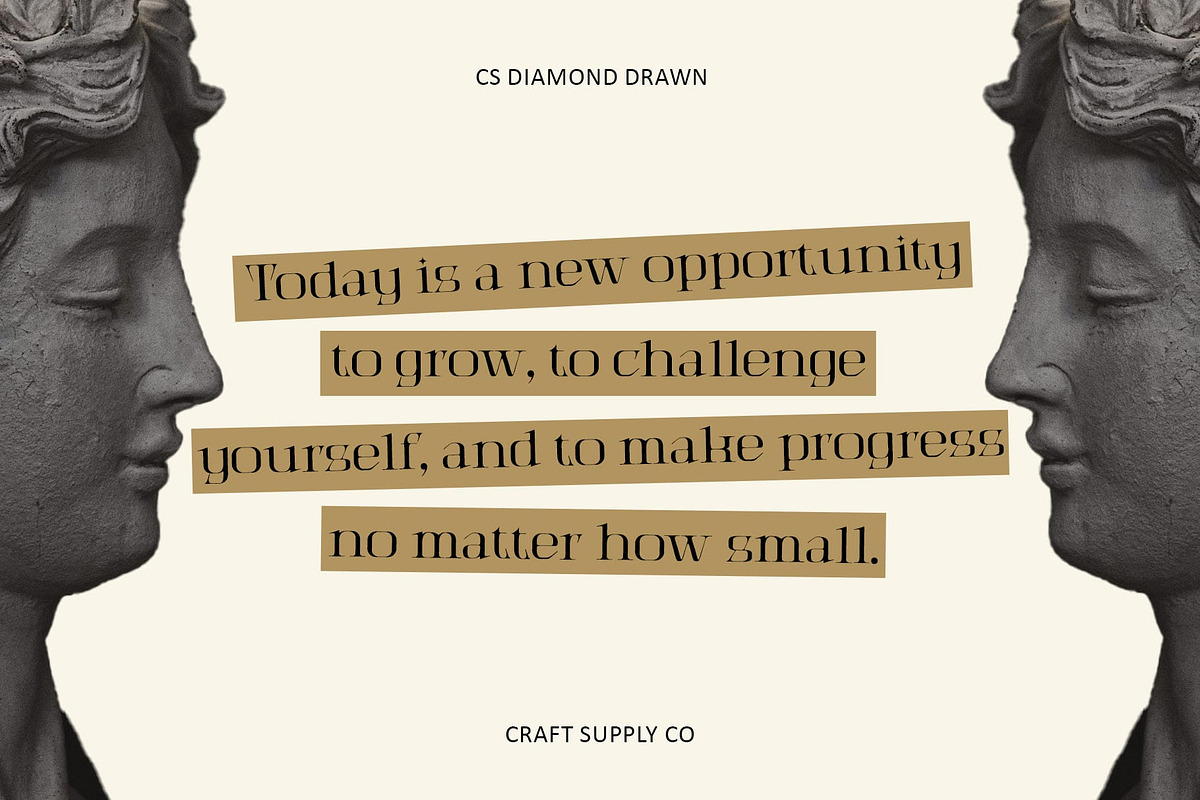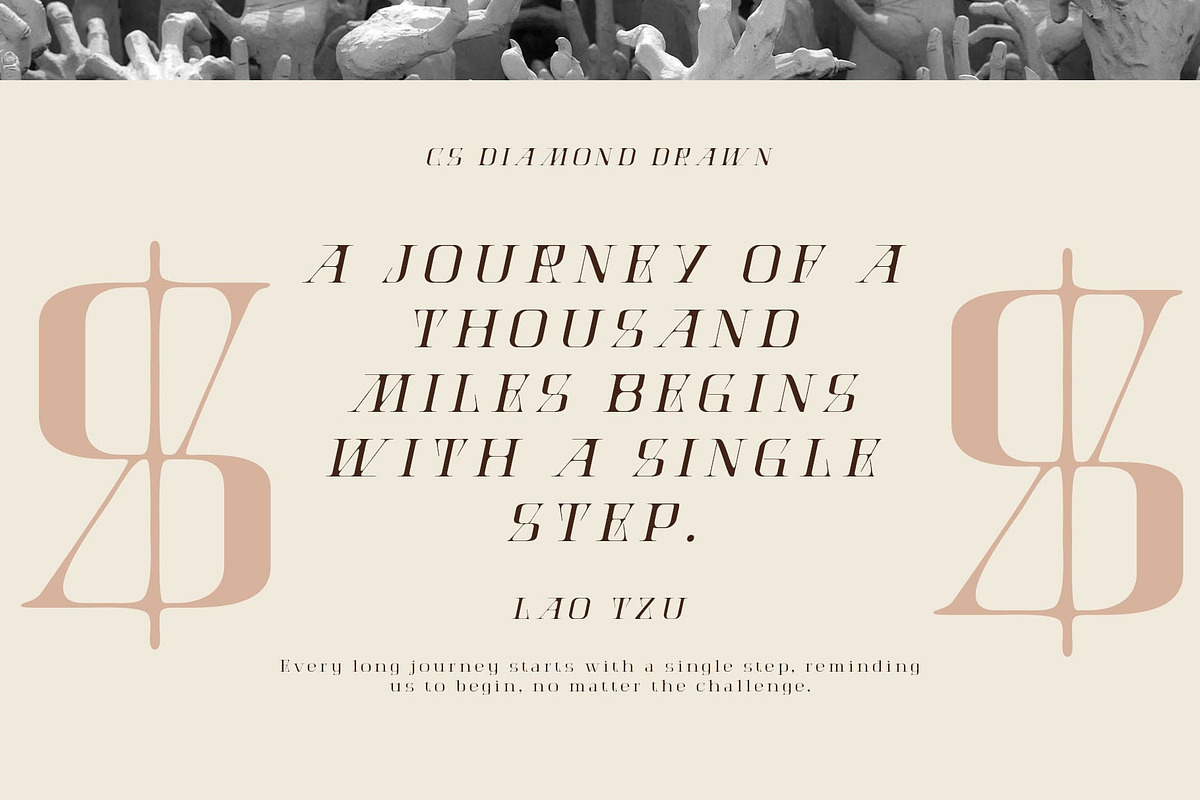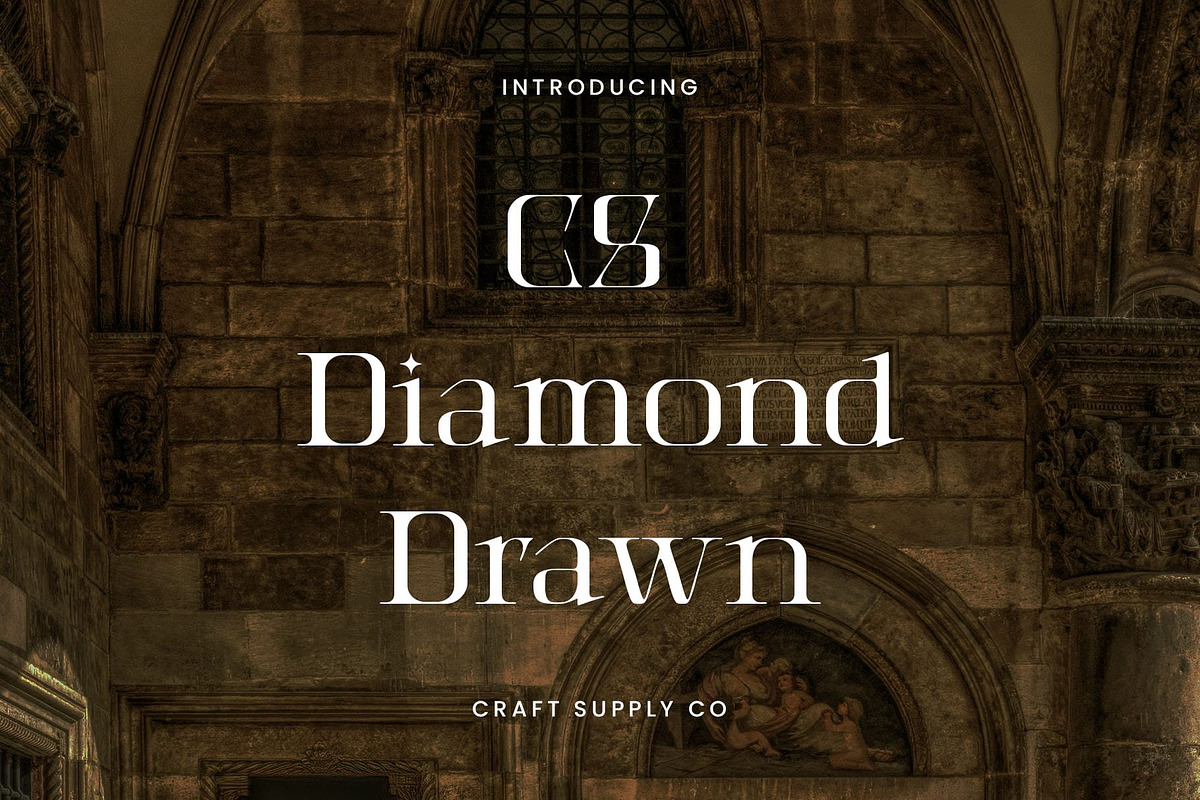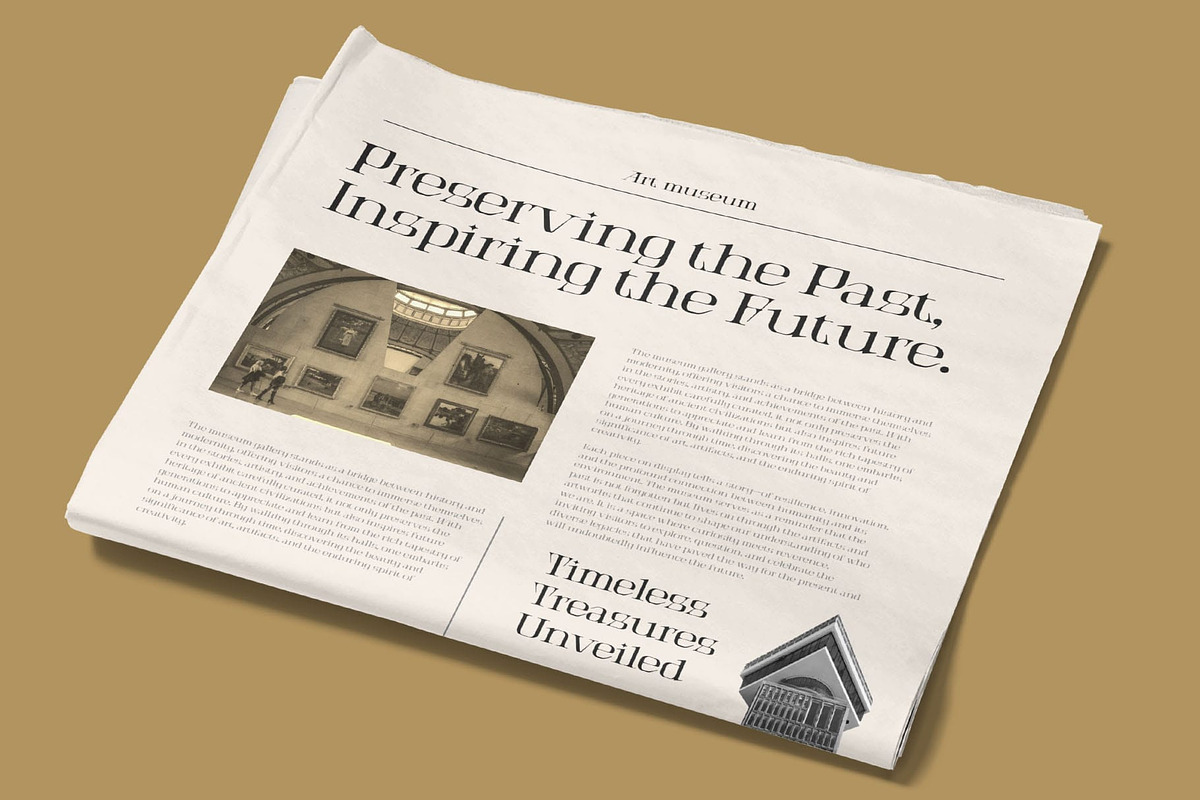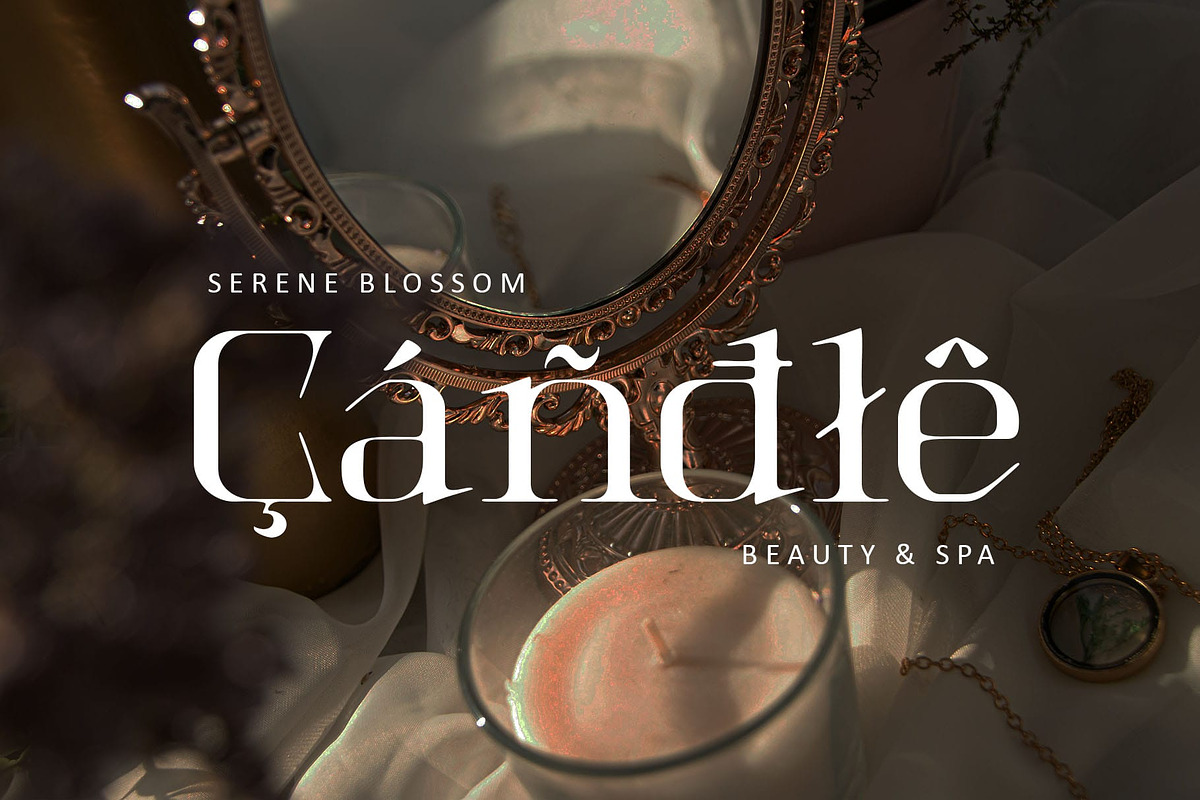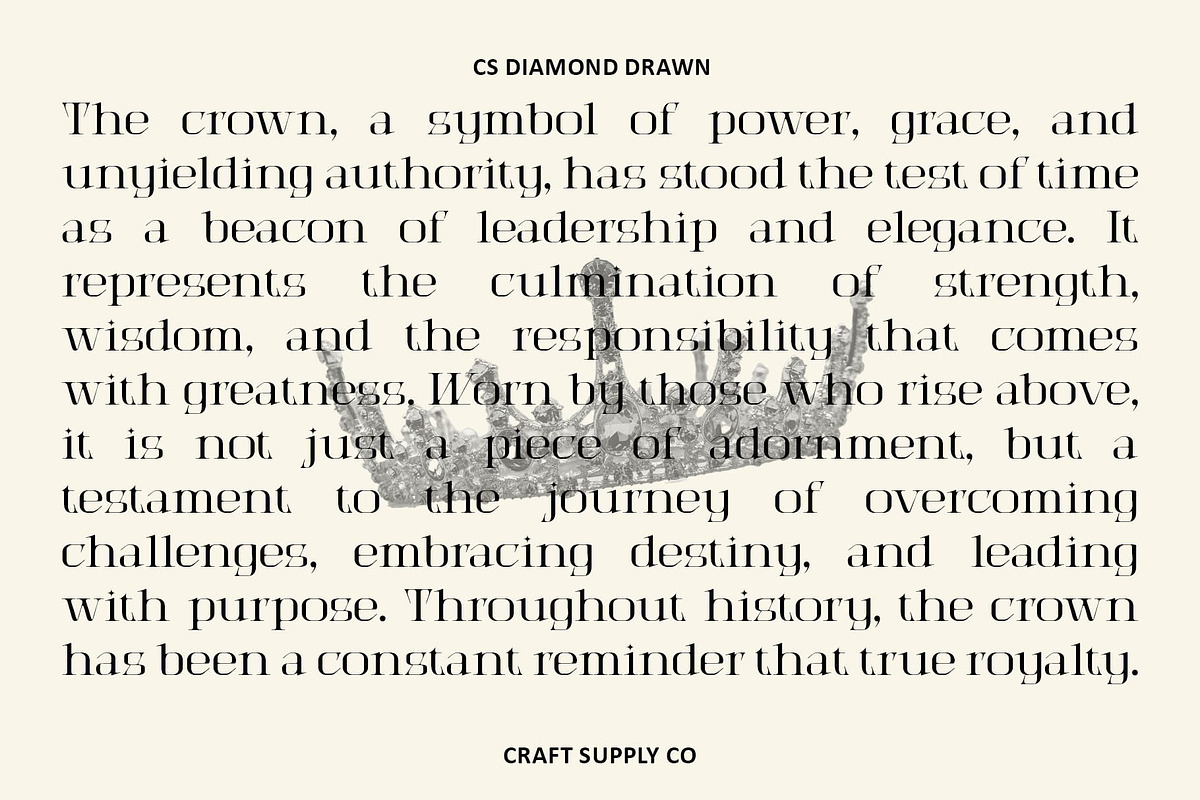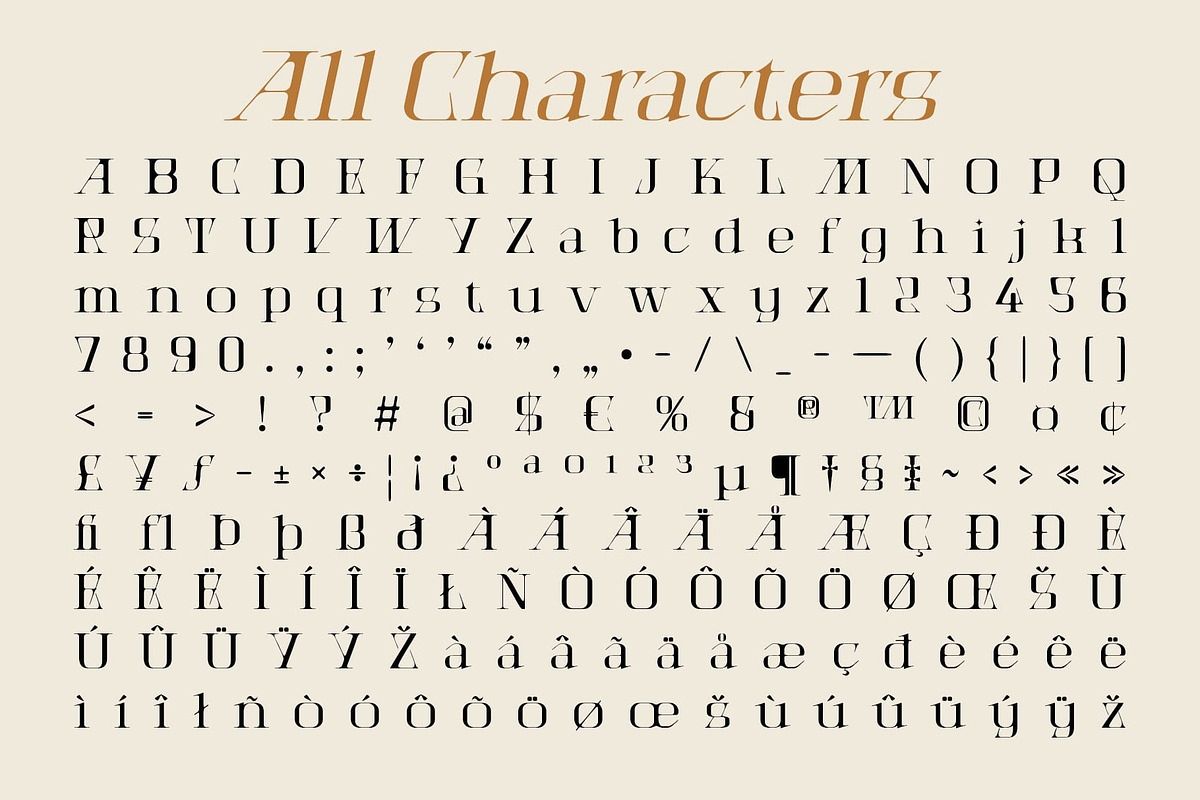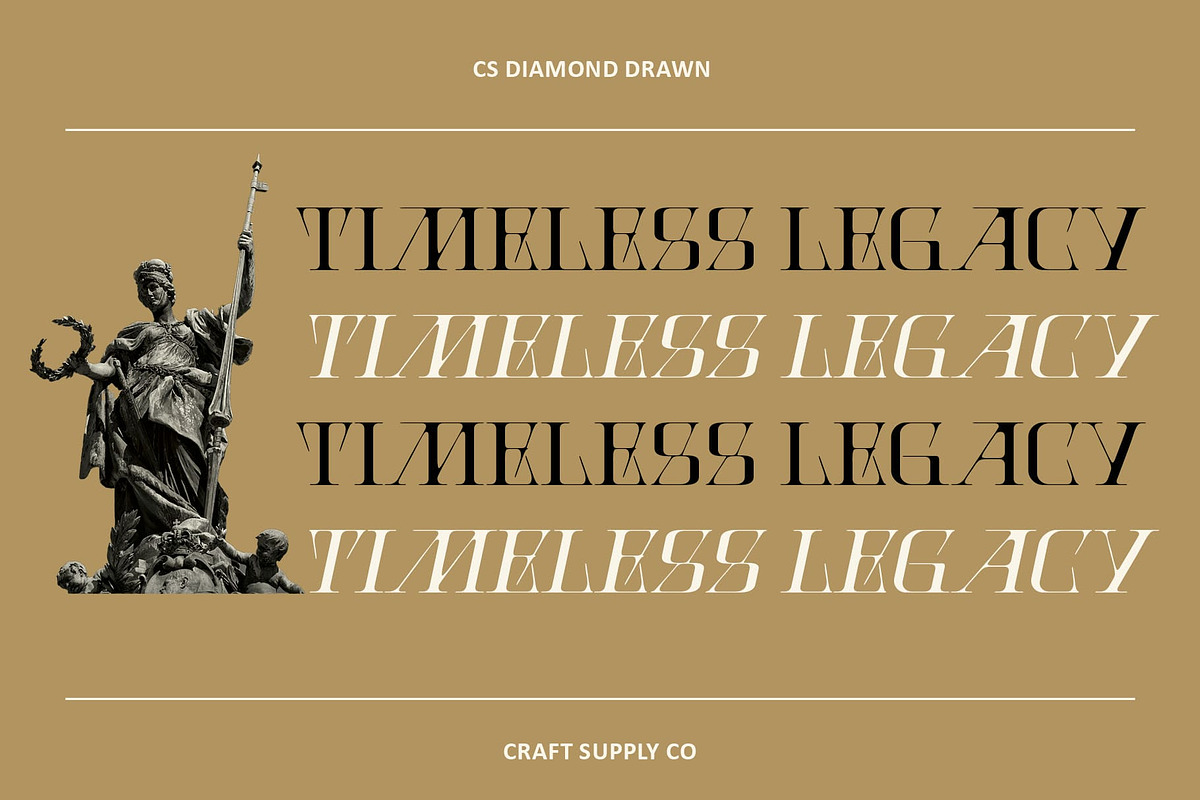
CS Diamond Drawn
CS Diamond Drawn – Elegant Hand-Drawn Serif Font
Timeless Elegance with a Crafted Touch CS Diamond Drawn is a modern serif font that seamlessly combines classic letterforms with a distinctive hand-drawn effect. This unique blend of traditional elegance and artisanal charm brings a sophisticated, yet personal touch to any design. Perfect for high-end branding, luxury editorial projects, and creative endeavors that seek refinement with a bit of artistic flair, this font elevates your design with its timeless appeal and crafted feel.
Classic Design Meets Artistic Flair At the heart of this drawn font lies a beautiful contrast between its traditional serif design and the subtle nuances of hand-drawn strokes. The clean, structured letterforms give the font a formal, classical feel, while the delicate hand-drawn elements infuse it with a sense of individuality and creativity. This striking balance of refinement and artistic craftsmanship makes this font an ideal choice for projects looking for a design that speaks to both sophistication and authenticity.
Sophisticated Luxury for Premium Projects Designed to make a bold yet elegant statement, this drawn font is perfect for premium projects that demand a sense of luxury and exclusivity. Its timeless appeal and artistic details make it ideal for high-end branding, invitations, fashion publications, or any design that aims to capture attention with grace and distinction.